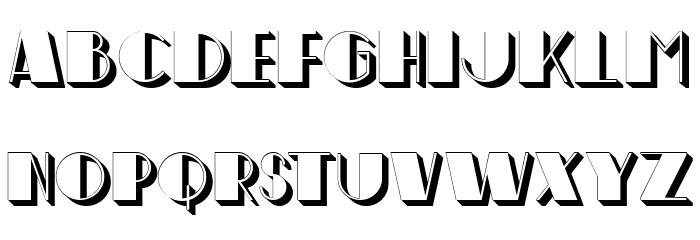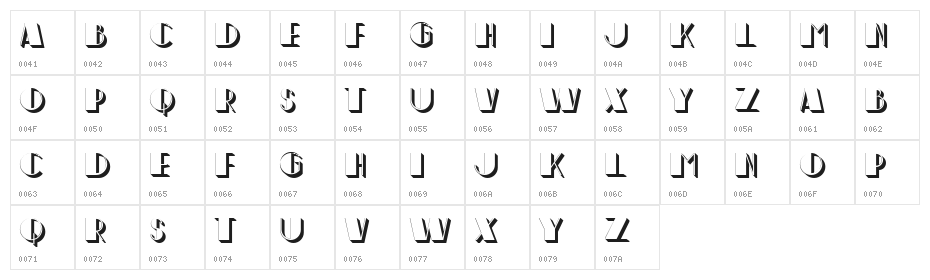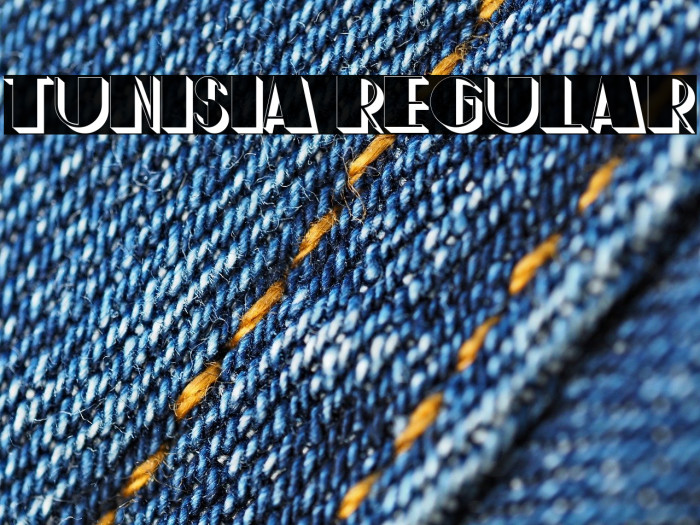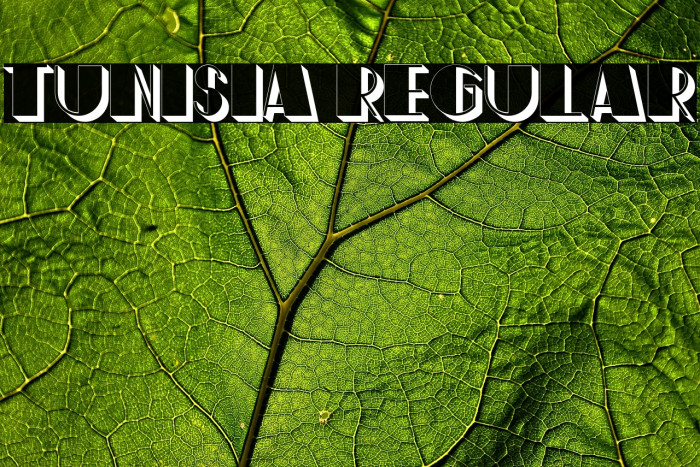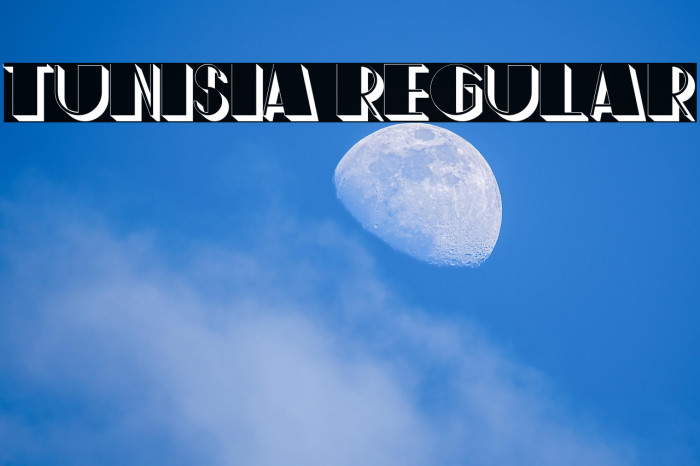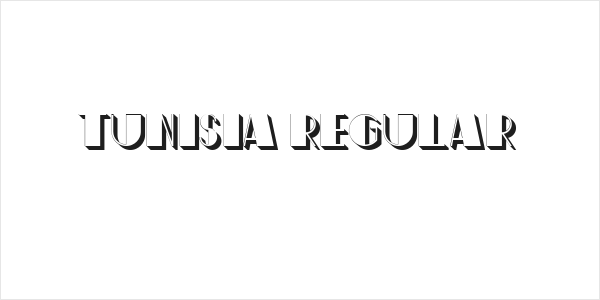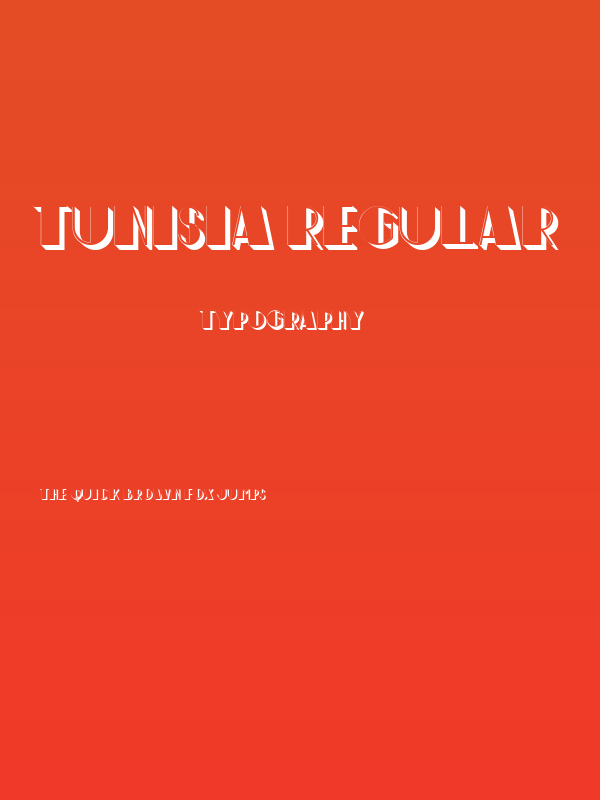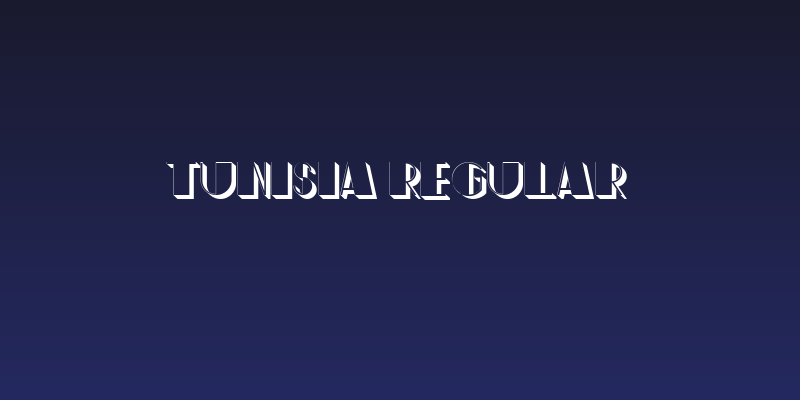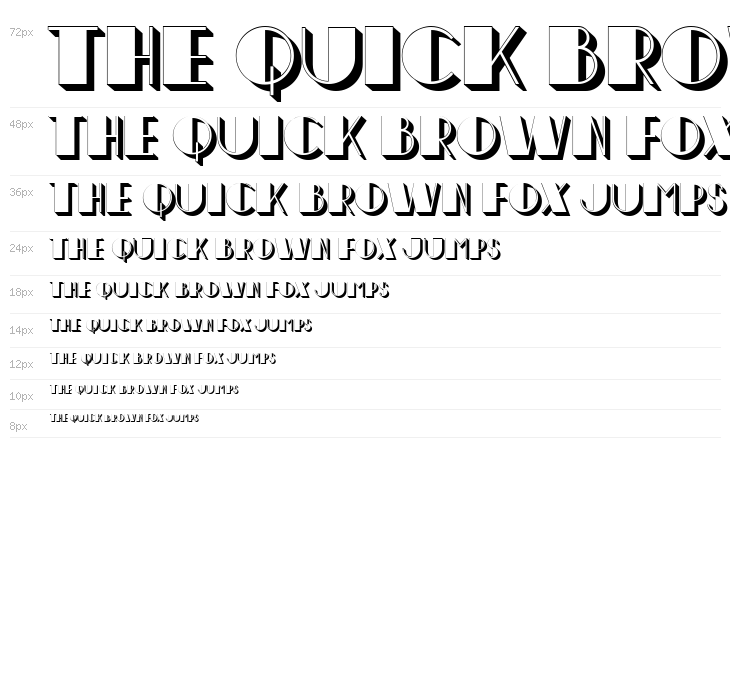
Tunisia Regular Font
Tunisia Regular Description
This font features a bold, geometric design with a three-dimensional effect. The letters are characterized by sharp angles and clean lines, creating a striking and modern appearance. The shadowing effect adds depth, making the characters stand out prominently. The uppercase letters are consistent in height, while the lowercase letters maintain a similar style, ensuring uniformity across the typeface. The numbers and special characters follow the same design principles, providing a cohesive look. This font is ideal for projects that require a bold statement and a contemporary feel.
| Proposed Projects | Ideal for branding, posters, headlines, and any design needing a modern, eye-catching typeface. |